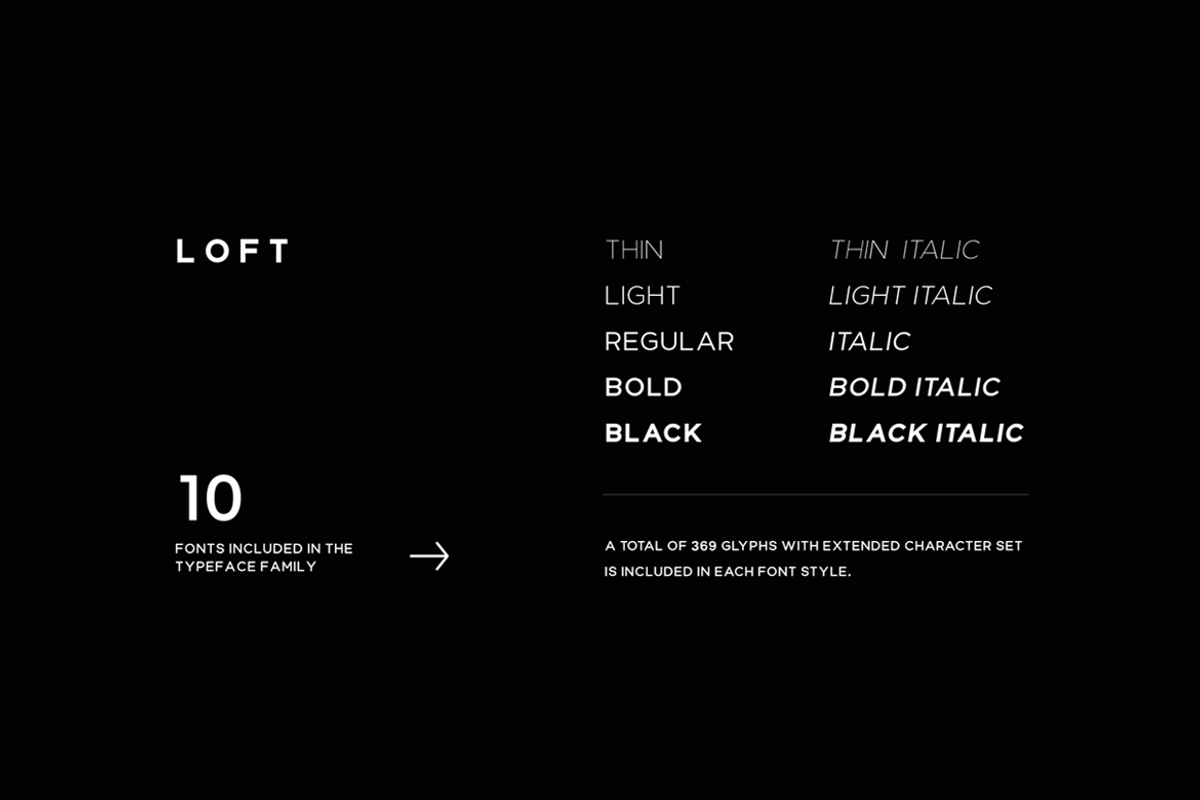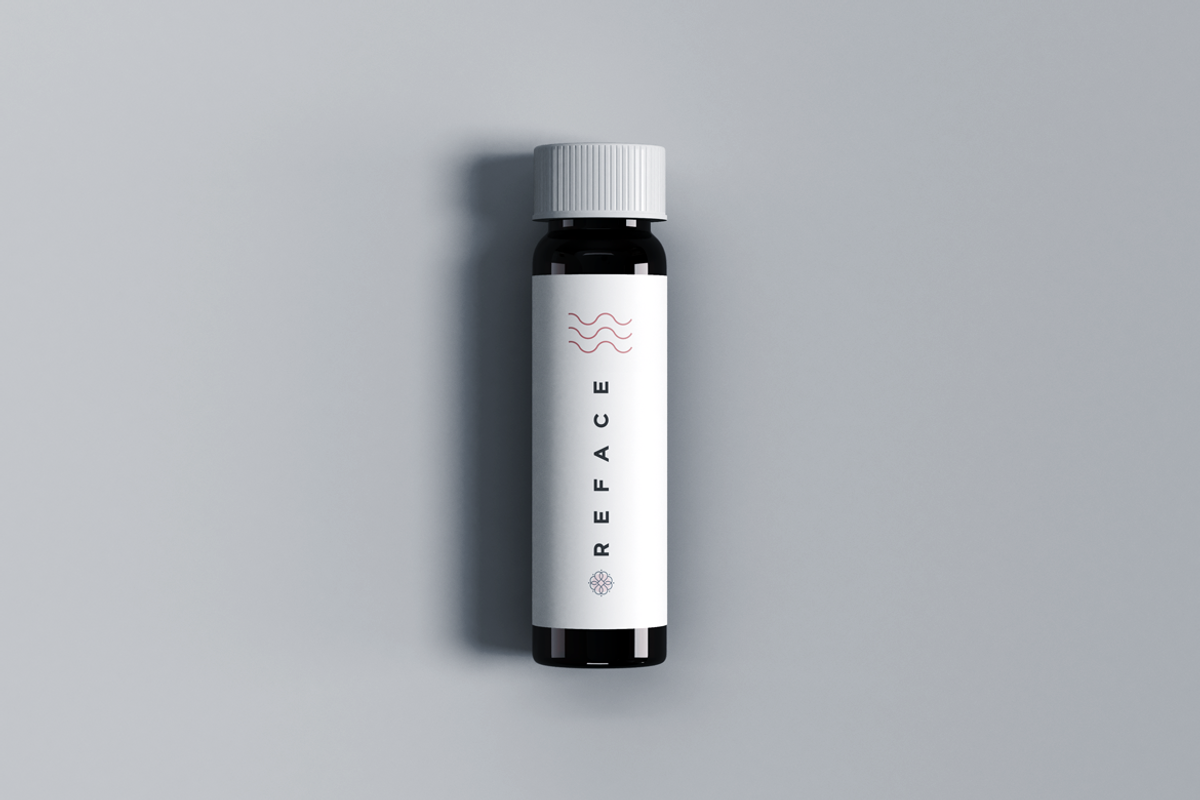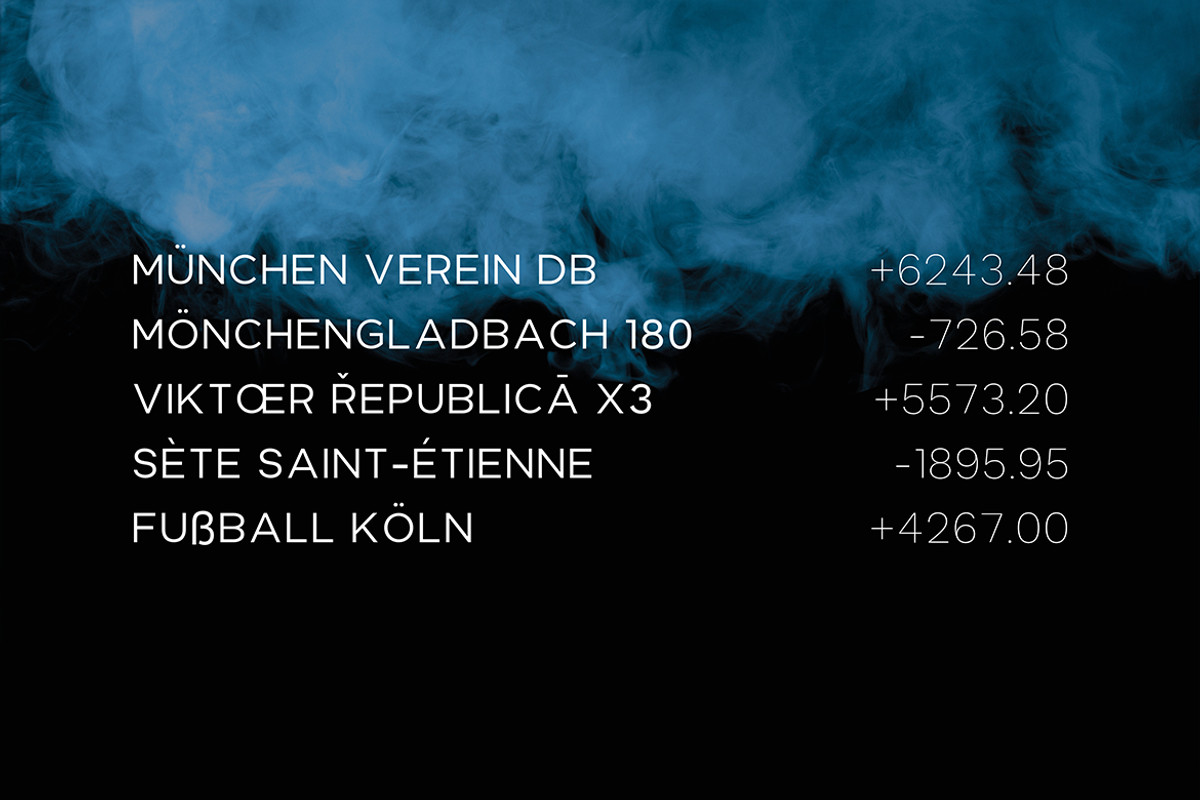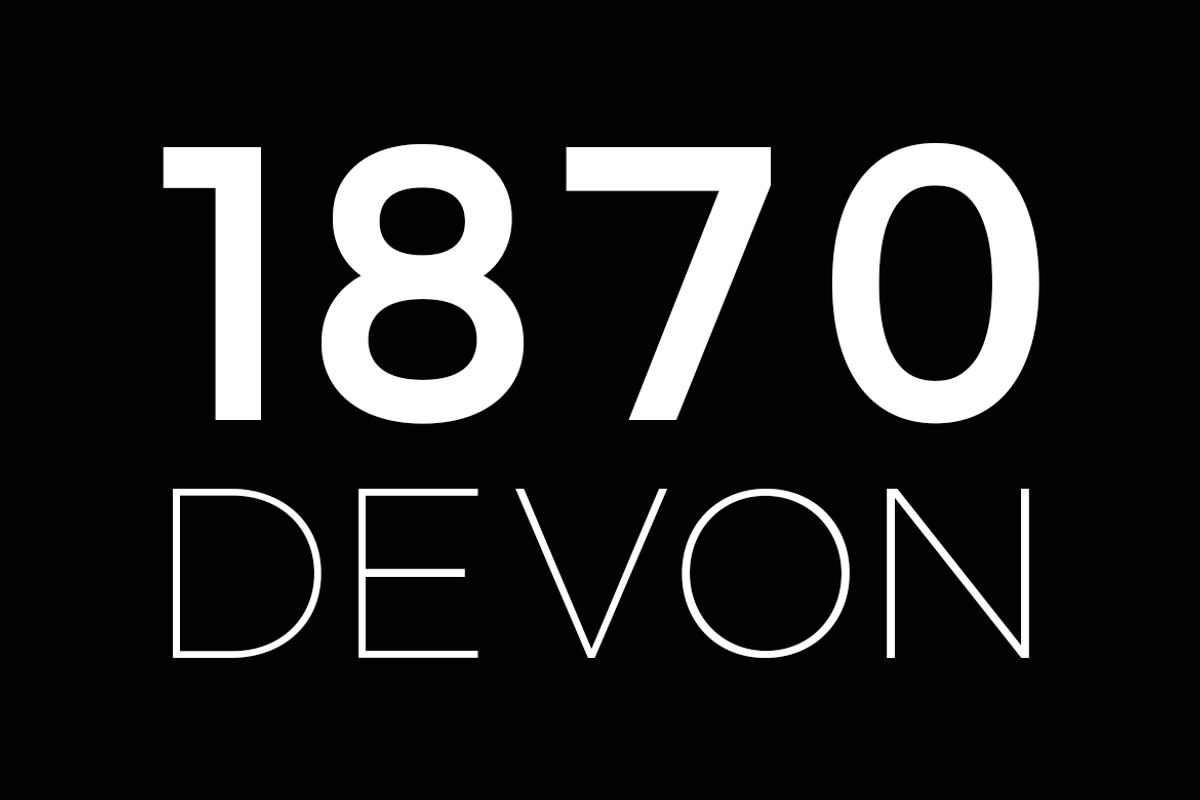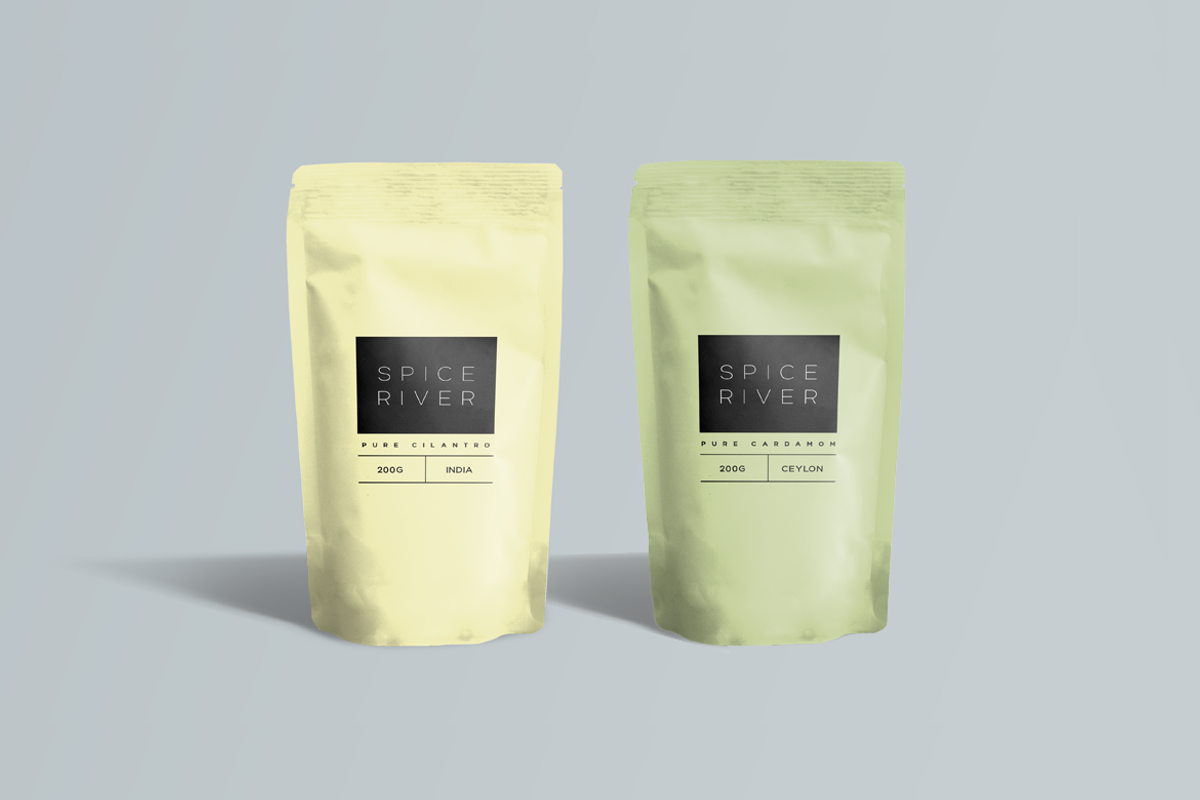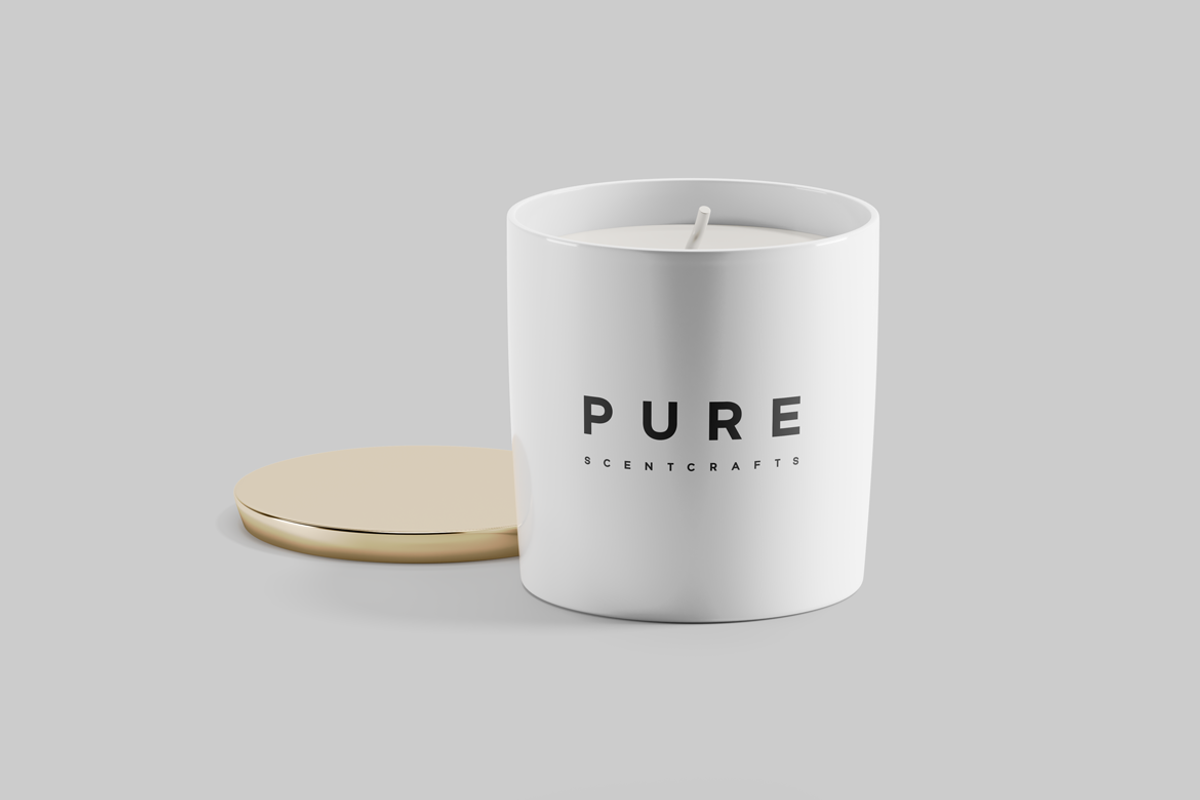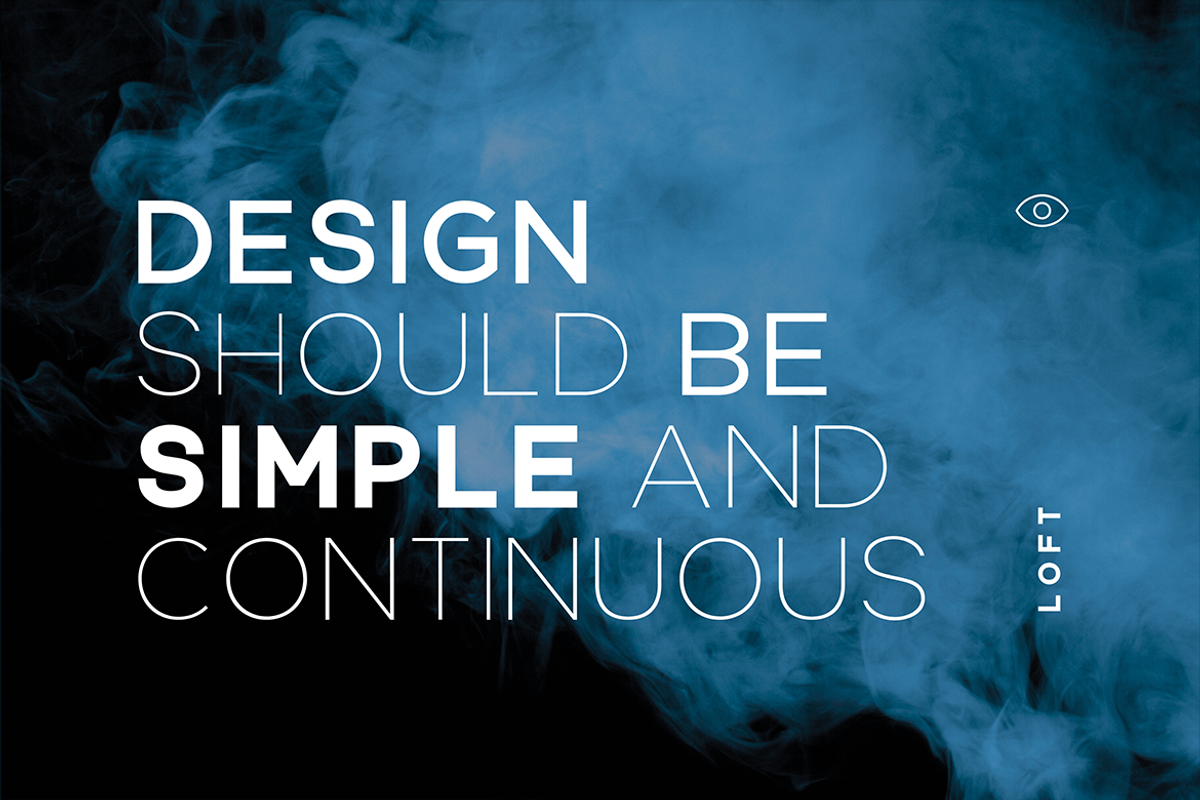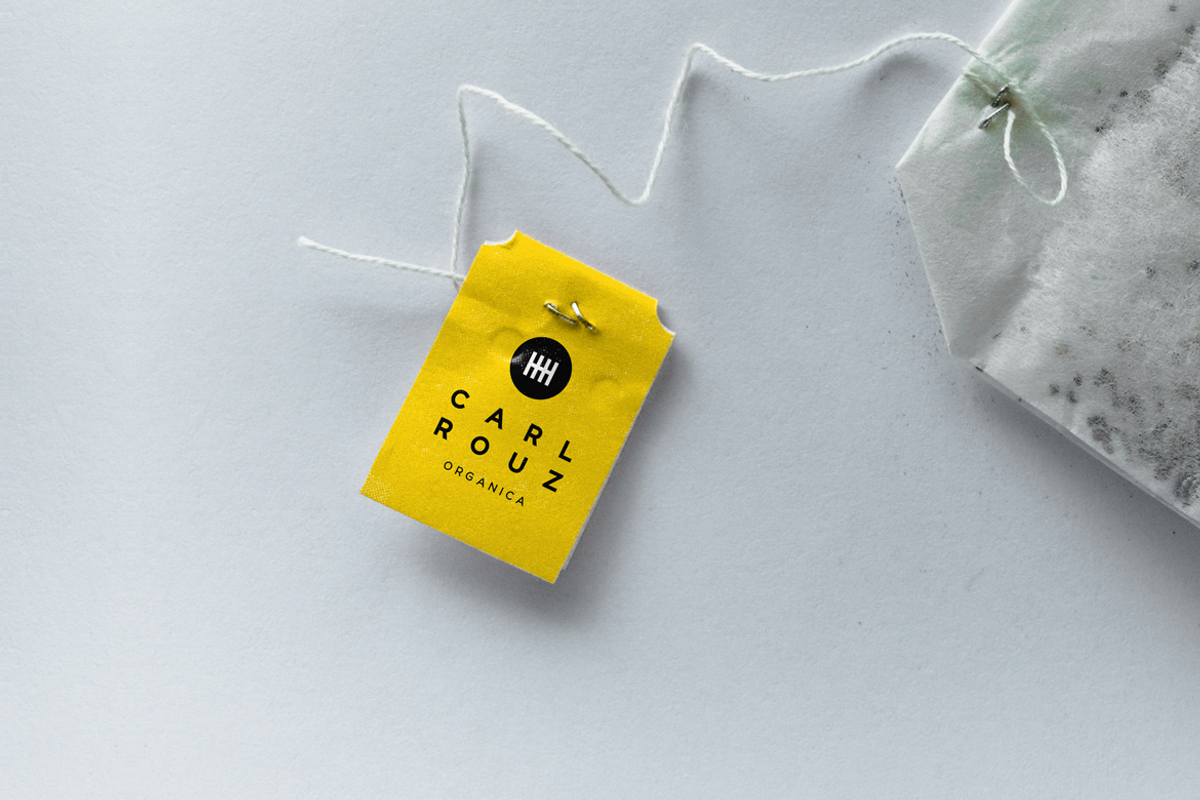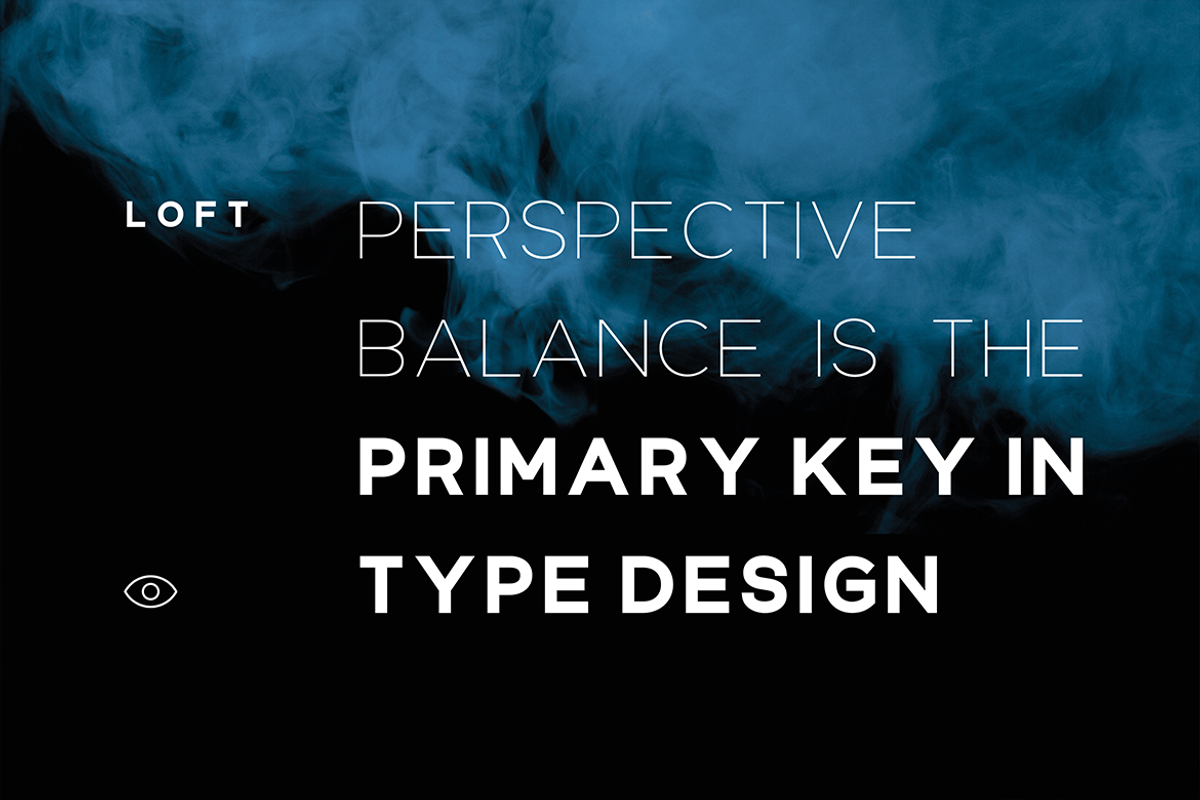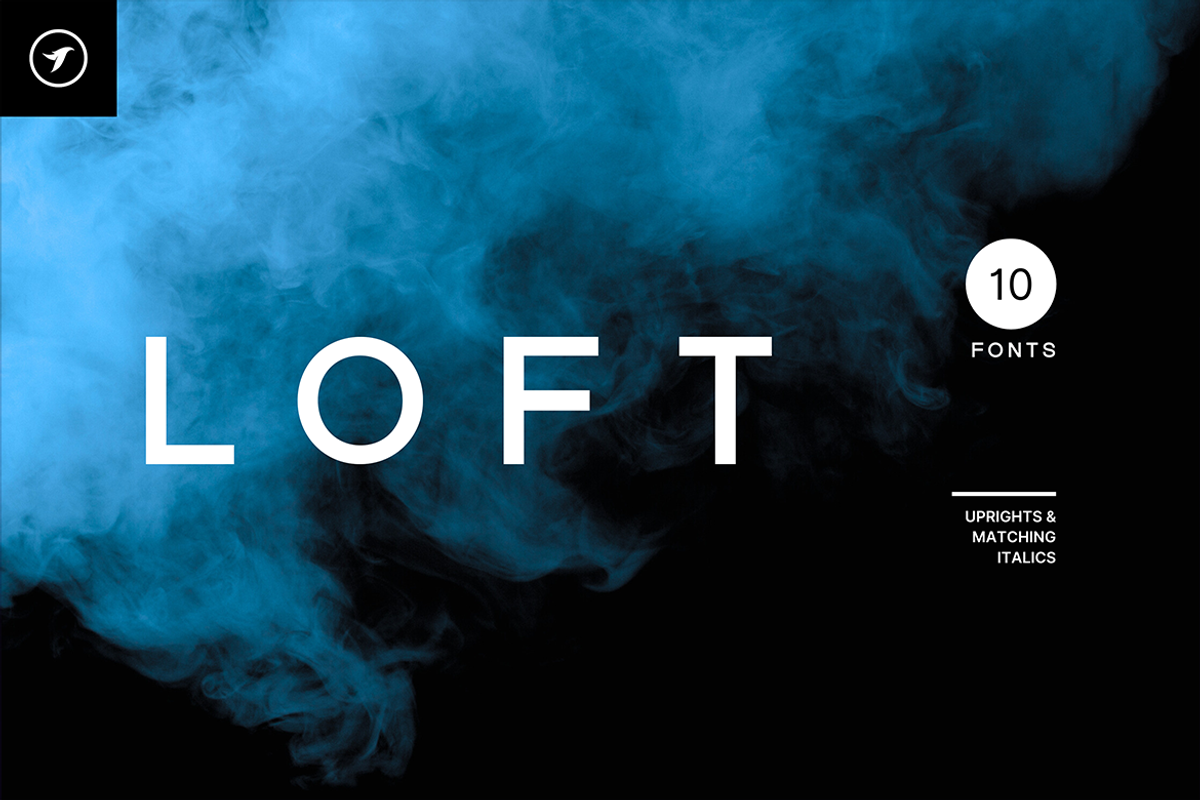
LOFT - Minimal Display Font Family
ABOUT THE FONT FAMILY:
LOFT is a modern and minimal font family that features a Sans Serif/Display/All-Caps style. This font family stands out due to its unique and distinctive design. It is best suited for creating branding, logotypes, headlines, corporate identities, and marketing materials for both web and print. When used for minimal designs, LOFT is particularly effective.
Thanks to its efficient letter spacing options, this versatile font offers endless possibilities for modern and minimalist designs, including logos, headlines, and identities. Please see the included demo graphics to get an idea about the capability of this typeface when used for branding and marketing material design. To get a better idea of the capabilities of this font, please refer to the included demo graphics.
LOFT font family comes with 10 fonts, including five upright weights (THIN / LIGHT / REGULAR / BOLD / BLACK) as well as Italic versions of all five weights. Each weight includes extended language support including Western European & Central European sets. A total of 369 glyphs are included.
*LOFT font family includes a collection of 10 fonts in total, with five upright weights and Italic equivalents of all five weights as follows:
- Thin
- Thin Italic
- Light
- Light Italic
- Italic
- Bold
- Bold Italic
- Black
- Black Italic
369 GLYPHS INCLUDED:
Handcrafted and designed with powerful OpenType features in mind, each weight includes extensive language support with Western European, Central European, and South Eastern European sets. A total of 369 glyphs are available.
Scripts: Latin